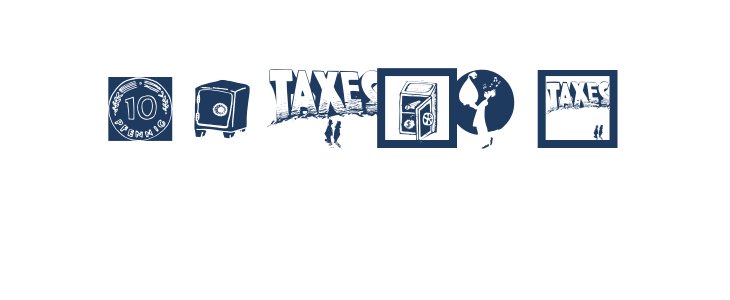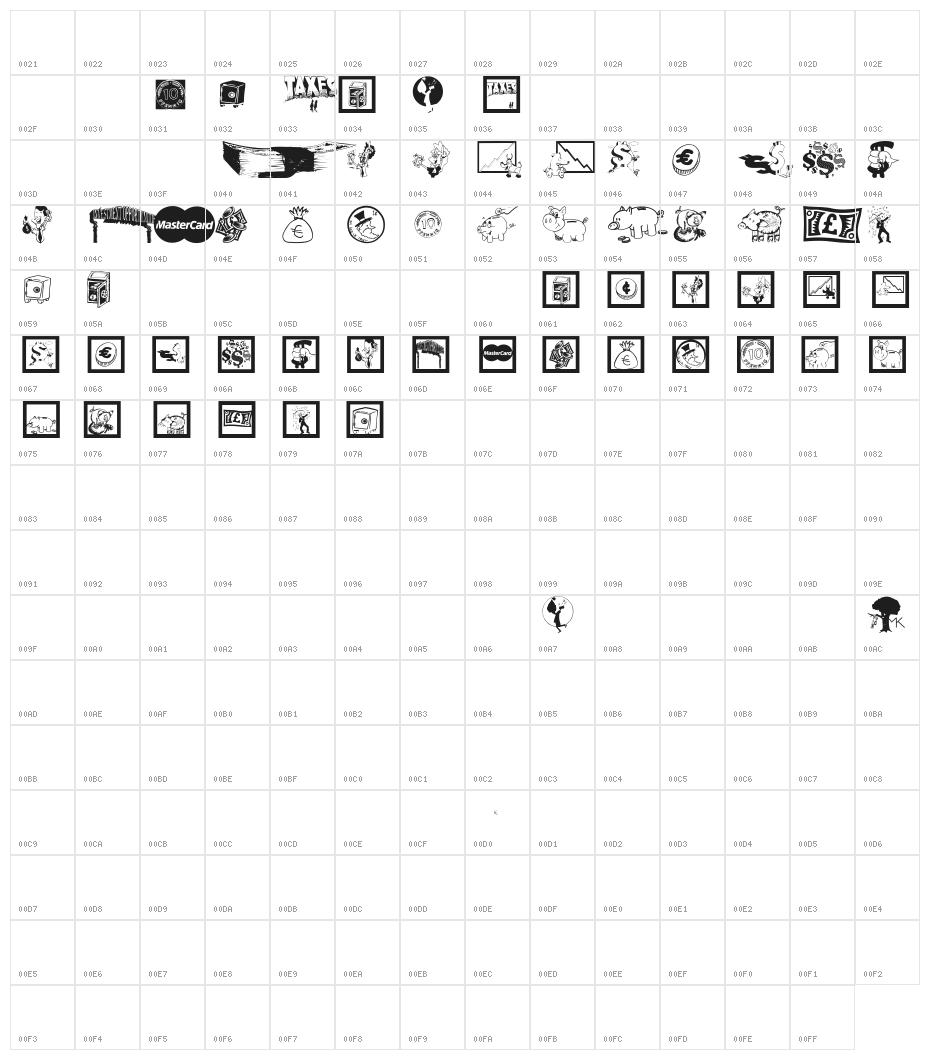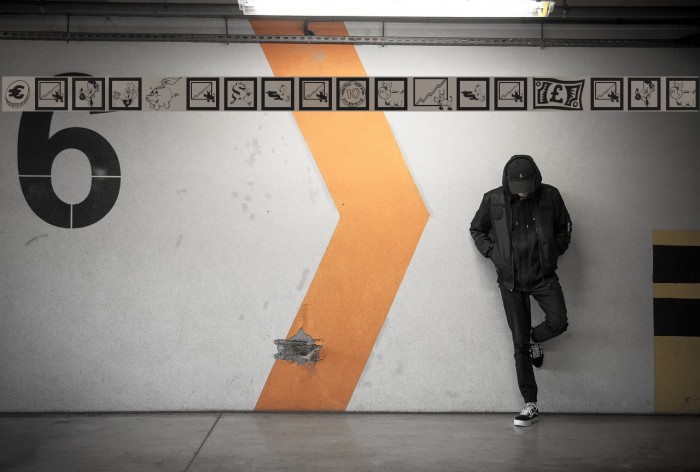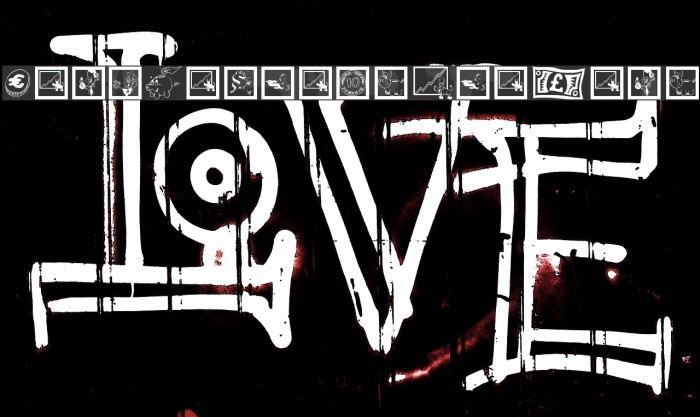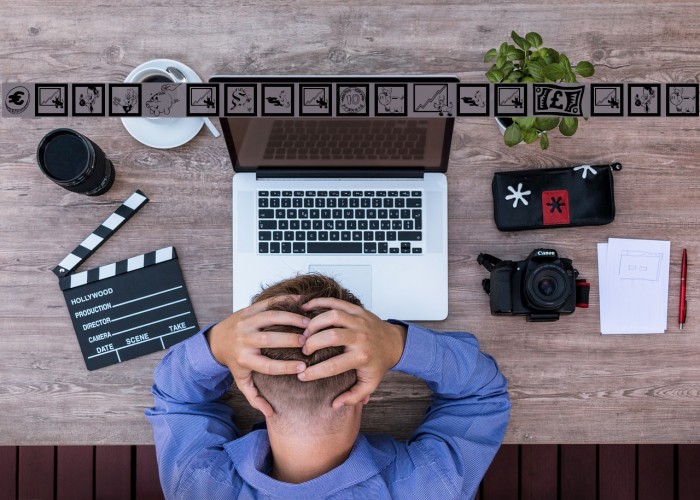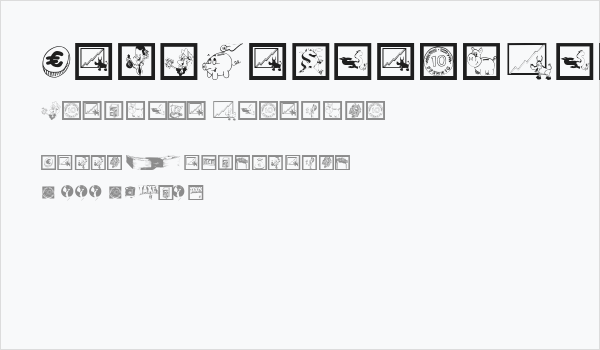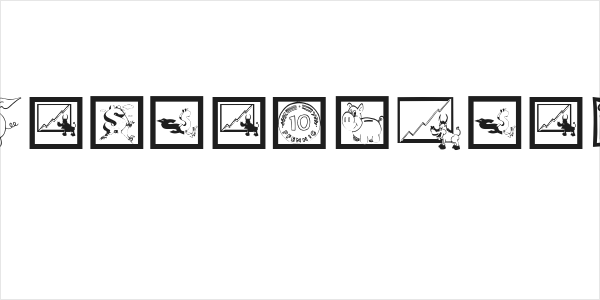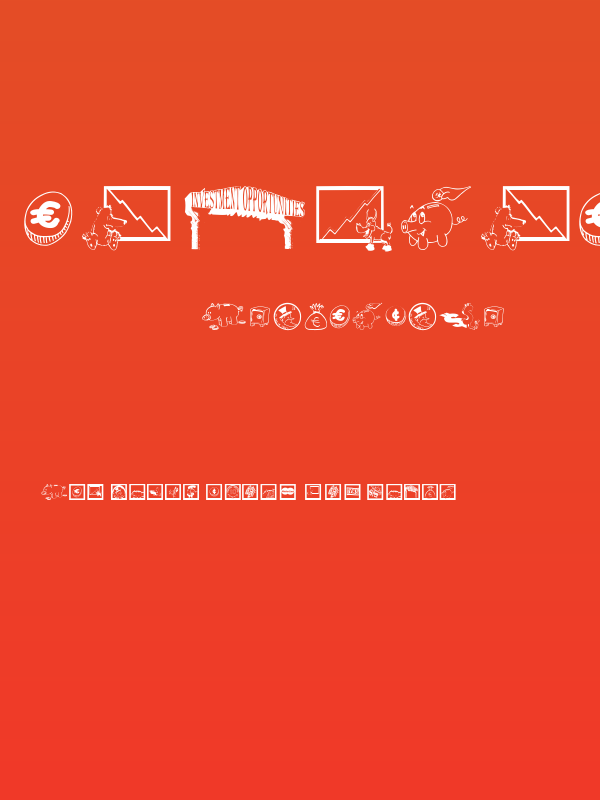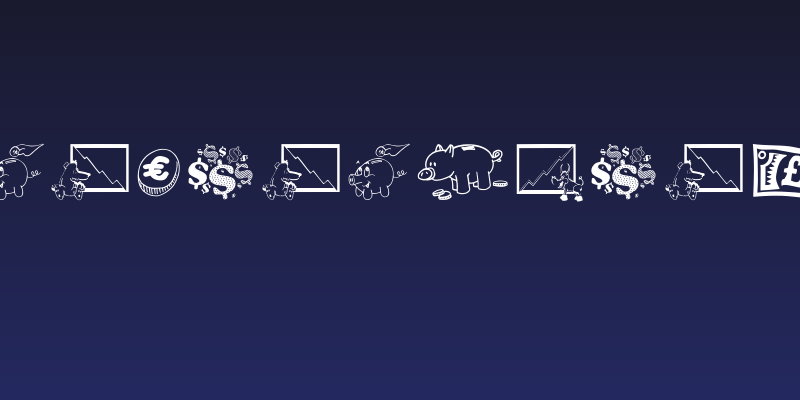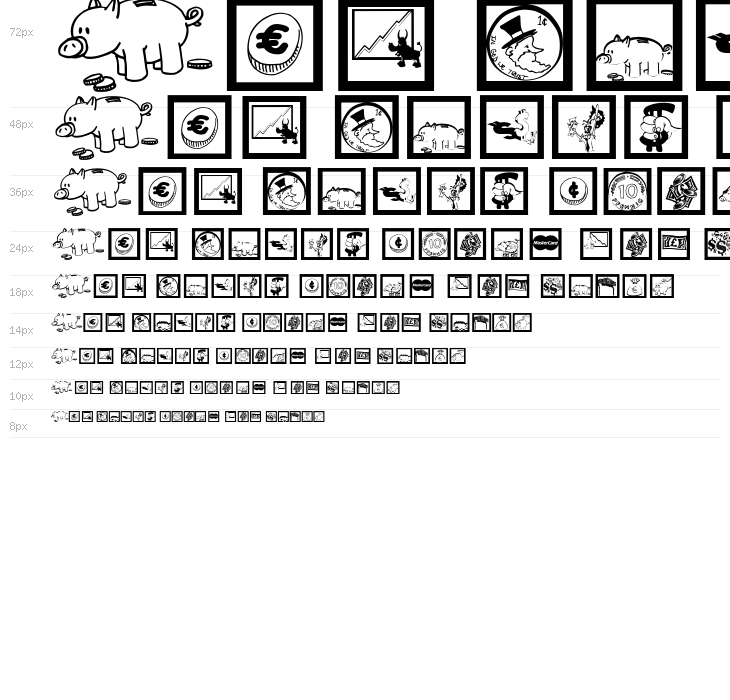
GeldRegiertDieWelt Font
GeldRegiertDieWelt Description
A decorative dingbat font featuring various finance and money-related illustrations such as coins, currency symbols, piggy banks, safes, and financial graphs. Each character is represented by a unique, detailed black-and-white drawing with a playful and illustrative style.
| Overall Style | Decorative, Playful, Illustrative |
| Use Case | Icons, Illustrations, Thematic dividers, Visual accents in finance-related content |
| Proposed Projects | Infographics, educational materials, posters about finance, playful branding for financial services, editorial illustrations. |